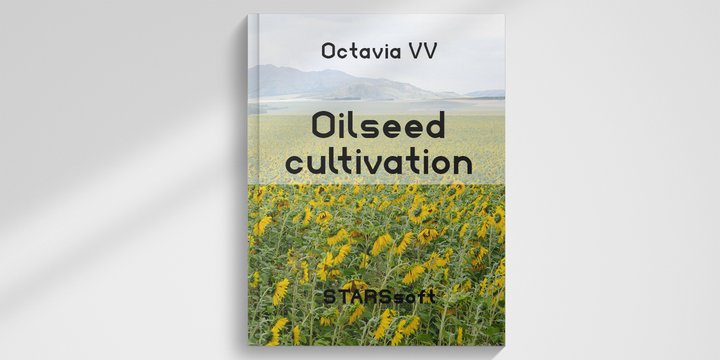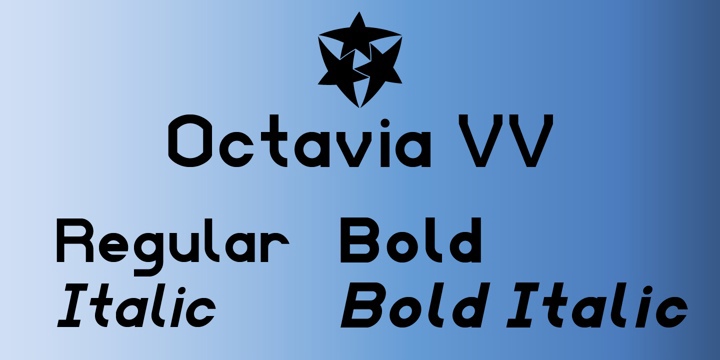
Octavia VV Font
Octavia VV Font is perfect for avant-garde art exhibitions, contemporary fashion magazines, innovative tech startups, architectural firm branding, modern art galleries, and cutting-edge design studios. Its sophisticated character makes it ideal for luxury automotive brands, high-end electronics, premium furniture designers, experimental music labels, progressive cultural institutions, and any project requiring futuristic elegance with experimental artistic vision.
This font is exciting because it pushes typographic boundaries while maintaining exceptional functionality and readability across all modern applications. The innovative letterforms showcase bold geometric experimentation and artistic courage, creating striking visual statements that capture attention and inspire audiences to embrace progressive thinking, creative innovation, and forward-looking design philosophies that challenge conventional aesthetic expectations.
The Octavia VV Font family typically includes multiple weights from Light to Bold with experimental alternates, geometric ligatures, and avant-garde character variations that amplify its innovative personality. This comprehensive collection empowers designers to create revolutionary brand systems that maintain consistent modernity while providing creative freedom for various applications requiring artistic boldness and technological sophistication.
Whether you're developing brand identity for disruptive technology companies, creating promotional materials for contemporary art festivals, or designing packaging for luxury innovation products, Octavia VV Font Free Download delivers the futuristic elegance and artistic innovation that resonates with progressive audiences. Its striking presence ensures memorable impact across digital interfaces and premium print materials, making it perfect for campaigns that celebrate creativity, innovation, and forward-thinking design with uncompromising artistic excellence and contemporary sophistication.